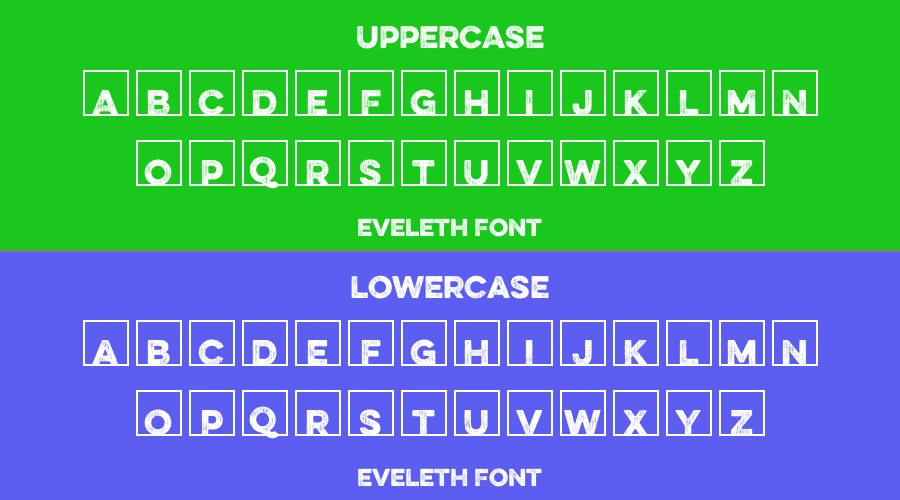
About Eveleth Font
Designed with precision, Eveleth Font merges brush influence with functionality in every character. This versatility makes it particularly effective for poster titles, where durability and design innovation directly impact communication quality. Each letterform demonstrates meticulous craftsmanship.
Technical excellence shines through elements like elegant curves and language support, enhancing typographic versatility. In section headers settings, Eveleth Font proves its worth through superior format conversion. The thoughtful execution of stroke contrast and contemporary relevance ensures professional results.
Eveleth Font |